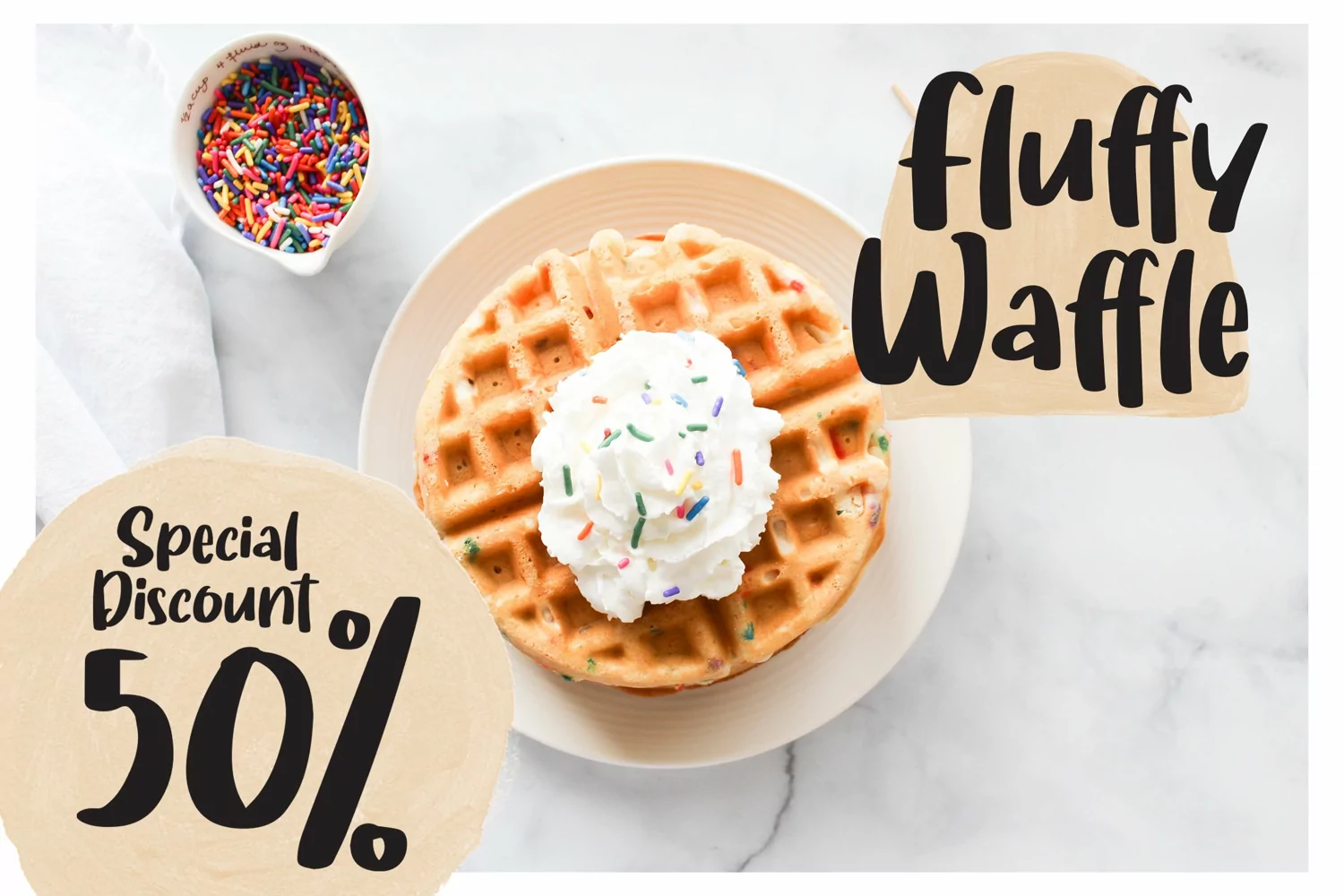
Crispy Waffle - Quirky Handrawn Font that contain lowercase, uppercase, symbol, and also support multi language. There’s a lot ligatures in this font. This Font also comes with ligatures, alternates and many more. this font suitable for fashion, branding, catalog and other design what you want.
Crispy Waffle